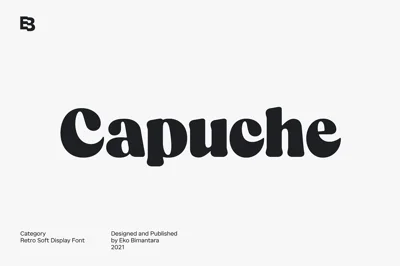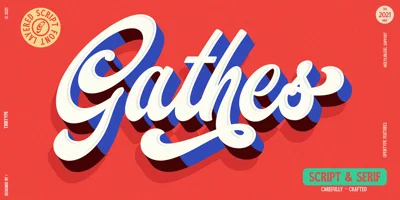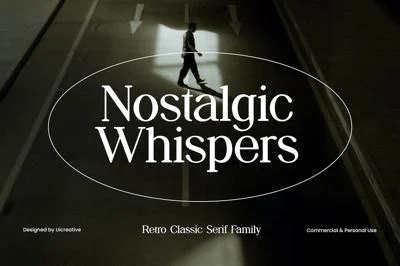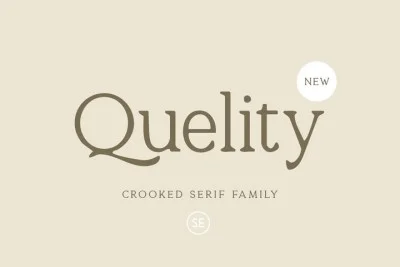
Font Trends Decoded: What's Hot in Typography Right Now
Typography trends evolve at lightning speed in our digital-first world, driven by cultural shifts, technological advances, and changing user behaviors. Understanding current font trends helps designers stay relevant while making strategic choices that resonate with contemporary audiences. However, successful typography goes beyond following trends—it requires understanding why certain styles gain popularity and how to implement them effectively while maintaining timeless design principles that ensure longevity.
The Rise of Brutalist Typography: Raw Expression in Digital Spaces
Brutalist typography has exploded in popularity as designers seek authentic expression that cuts through digital noise and polished perfection. This trend embraces imperfection, irregularity, and raw aesthetic power that commands attention in saturated digital environments.
Defining Brutalist Typography: Brutalist fonts feature intentionally rough edges, irregular spacing, and unconventional letterforms that challenge traditional typography rules. These fonts communicate authenticity, rebellion, and creative confidence that appeals to audiences seeking genuine expression over manufactured perfection.
Cultural Context and Appeal: The brutalist trend reflects broader cultural shifts toward authenticity and rejection of overly polished digital experiences. Younger audiences particularly respond to typography that feels handmade and personal rather than algorithmically optimized for maximum appeal.
Strategic Implementation: Successful brutalist typography requires careful balance between rawness and readability. Use brutalist fonts for headlines and display applications while pairing them with cleaner options for body text. The contrast creates visual interest while maintaining functional accessibility.
Brand Applications: Creative agencies, fashion brands, and cultural institutions lead brutalist typography adoption, using these fonts to communicate creative leadership and cultural relevance. However, brutalist fonts require careful consideration of brand personality and audience expectations.
Variable Fonts: Technology Driving Design Innovation
Variable fonts represent the most significant technological advancement in typography since digital type, offering unprecedented flexibility and creative possibilities that are reshaping design approaches across industries.
Understanding Variable Font Technology: Variable fonts contain multiple variations within single files, allowing smooth transitions between weights, widths, and other characteristics. This technology reduces file sizes while providing infinite customization possibilities that traditional fonts cannot match.
Creative Applications: Designers use variable fonts to create responsive typography that adapts automatically to screen sizes, reading distances, and user preferences. Animation and interaction design benefit enormously from variable fonts' ability to transition smoothly between different states.
Performance Benefits: Web applications particularly benefit from variable fonts' efficiency, as single files replace multiple weight variations that previously required separate downloads. This technical advantage supports both creative flexibility and performance optimization.
Current Adoption Trends: Major tech companies and forward-thinking brands lead variable font adoption, using this technology to create distinctive digital experiences that demonstrate innovation leadership. The trend continues accelerating as browser support improves and design tools add variable font features.
Free Variable Font Resources: Google Fonts and other free font services increasingly offer variable font options that provide cutting-edge capabilities without licensing barriers, democratizing access to advanced typography technology.
Retro-Futurism: Nostalgia Meets Tomorrow
Retro-futuristic typography combines vintage aesthetics with contemporary technical capabilities, creating fonts that evoke past visions of the future while serving modern design needs.
The Aesthetic Appeal: Retro-futuristic fonts draw inspiration from 1970s and 1980s science fiction, featuring geometric shapes, neon-inspired styling, and metallic effects that create distinctive visual impact. These fonts tap into cultural nostalgia while projecting forward-thinking innovation.
Digital Enhancement: Modern retro-futuristic fonts benefit from contemporary technical optimization and digital effects capabilities that weren't available during the original eras they reference. This combination creates fonts that feel both familiar and cutting-edge.
Industry Applications: Gaming companies, entertainment brands, and technology startups particularly embrace retro-futuristic typography to communicate innovation with emotional resonance. The aesthetic works excellently for brands targeting audiences with appreciation for vintage science fiction and technological optimism.
The typography landscape continues evolving rapidly, making ongoing trend awareness essential for design relevance. However, fundamental principles of readability, brand alignment, and user experience remain constant even as specific trends change.
Stay informed about typography trends while maintaining focus on timeless design principles that ensure your typography choices create lasting value for your brand and audience relationships.